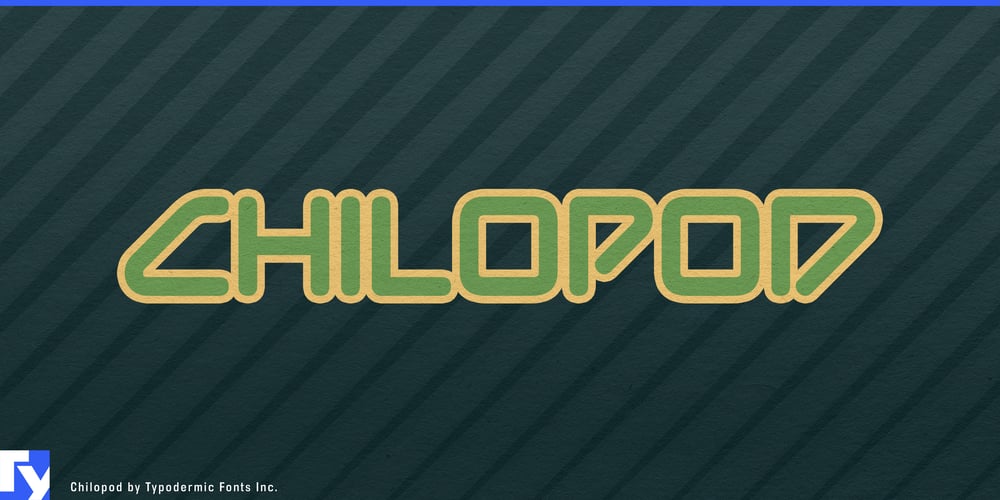
Chilopod
Chilopod font
Chilopod Font Family was designed by Ray Larabie and published by Typodermic. Chilopod contains 1 styles and family package options. Unleash the nostalgic power of pixelated dreams with Chilopod, a typeface that doesn’t just nod to the golden era of arcade gaming—it teleports you straight into the heart of it. Inspired by the legendary Centipede, this worm script font transforms your text into a mesmerizing chain of retro-futuristic delight.Chilopod isn’t merely a font; it’s a time machine disguised as typography. Each character pulses with the energy of neon-lit arcades, the excitement of high scores, and the thrill of one more quarter. Its bold, connected letters weave a tapestry of nostalgia that’s impossible to ignore, making it the perfect choice for designs that need to capture attention and ignite memories. But Chilopod’s charm goes beyond mere aesthetics. This font is armed with OpenType ligatures, a feature that transforms common letter combinations into seamless, continuous lines. It’s as if your words are coming to life, mimicking the fluid movement of that iconic digital arthropod. This perfect fusion of form and function ensures that your designs not only look amazing but read effortlessly.Chilopod’s versatility is as impressive as its visual impact. It speaks the language of gaming across cultures, supporting an extensive array of Latin-based writing systems. Whether you’re crafting event posters for a retro gaming tournament in Gothenburg, designing a menu for a geek-chic café in Berlin, or creating branding for a tech startup in São Paulo, Chilopod ensures your message retains its pixelated pizzazz in dozens of languages.In a world where digital design often leans towards the sleek and minimalist, Chilopod stands out as a bold declaration of fun and nostalgia. It’s more than a typeface—it’s an experience, a conversation starter, and a creative powerhouse all rolled into one. So why settle for fonts that merely communicate when you can choose one that transports?Level up your design game with Chilopod. Watch as your projects come alive with the spirit of arcade classics, each letter a high-score worthy achievement in typography. Whether you’re a seasoned designer or a creative rookie, Chilopod gives you the power-up you need to create designs that are truly game-changing. Press start on Chilopod today—and let the games begin!